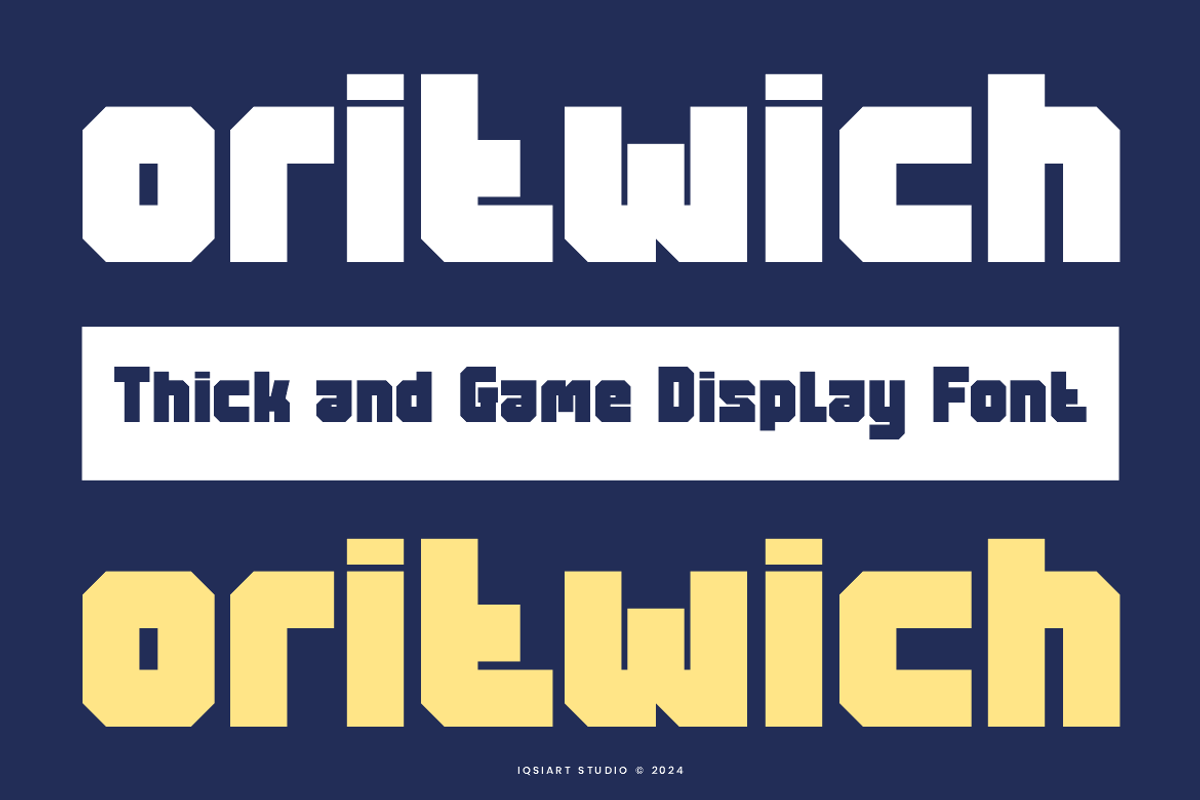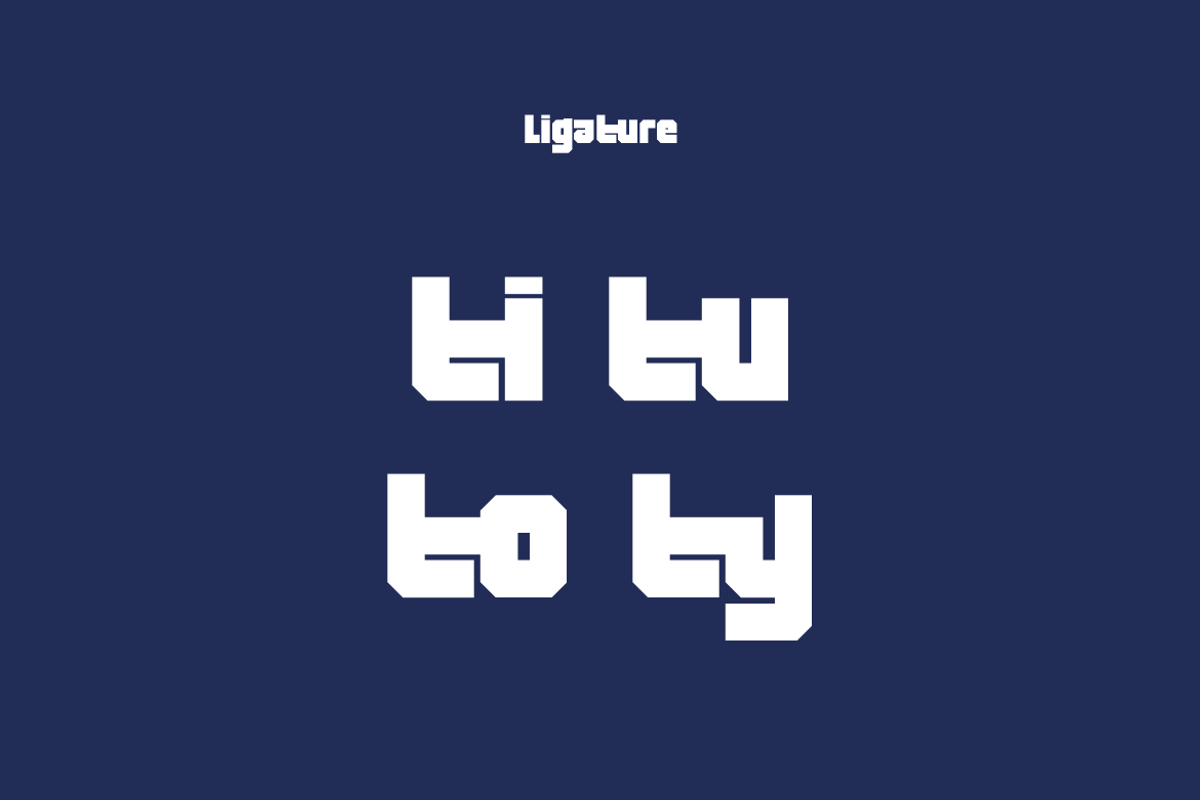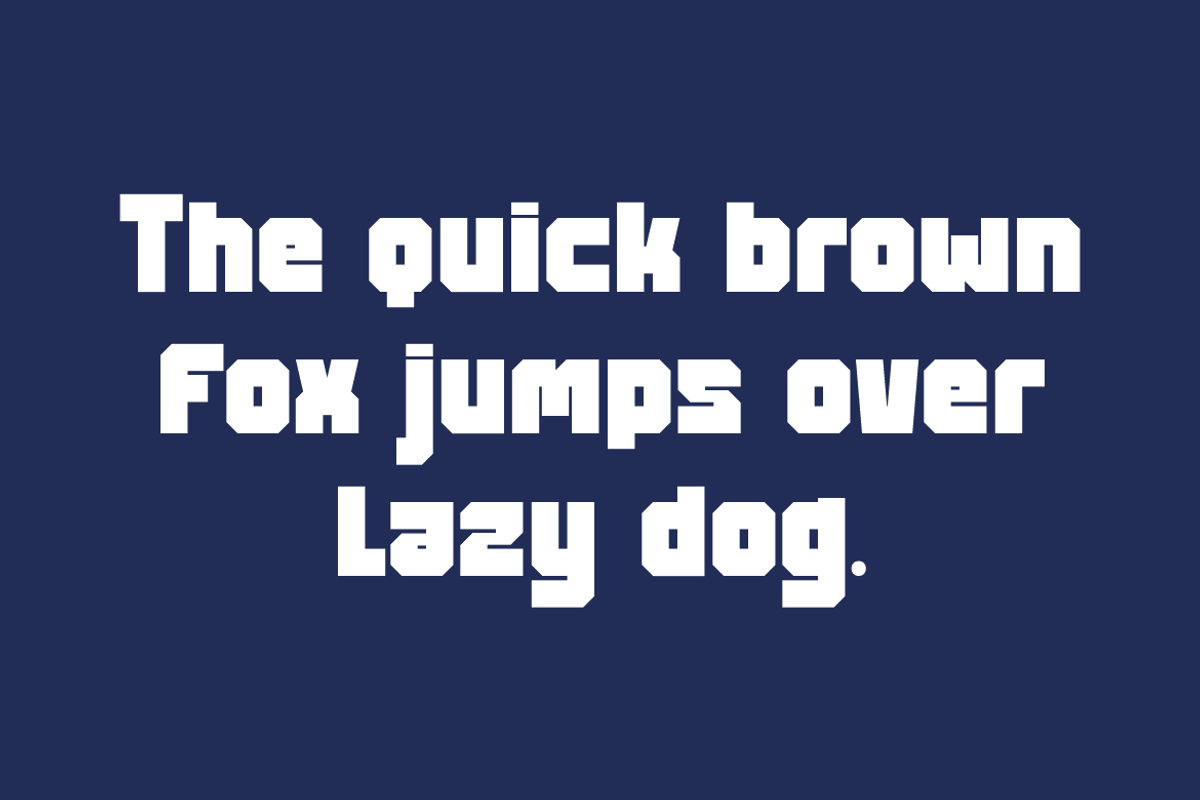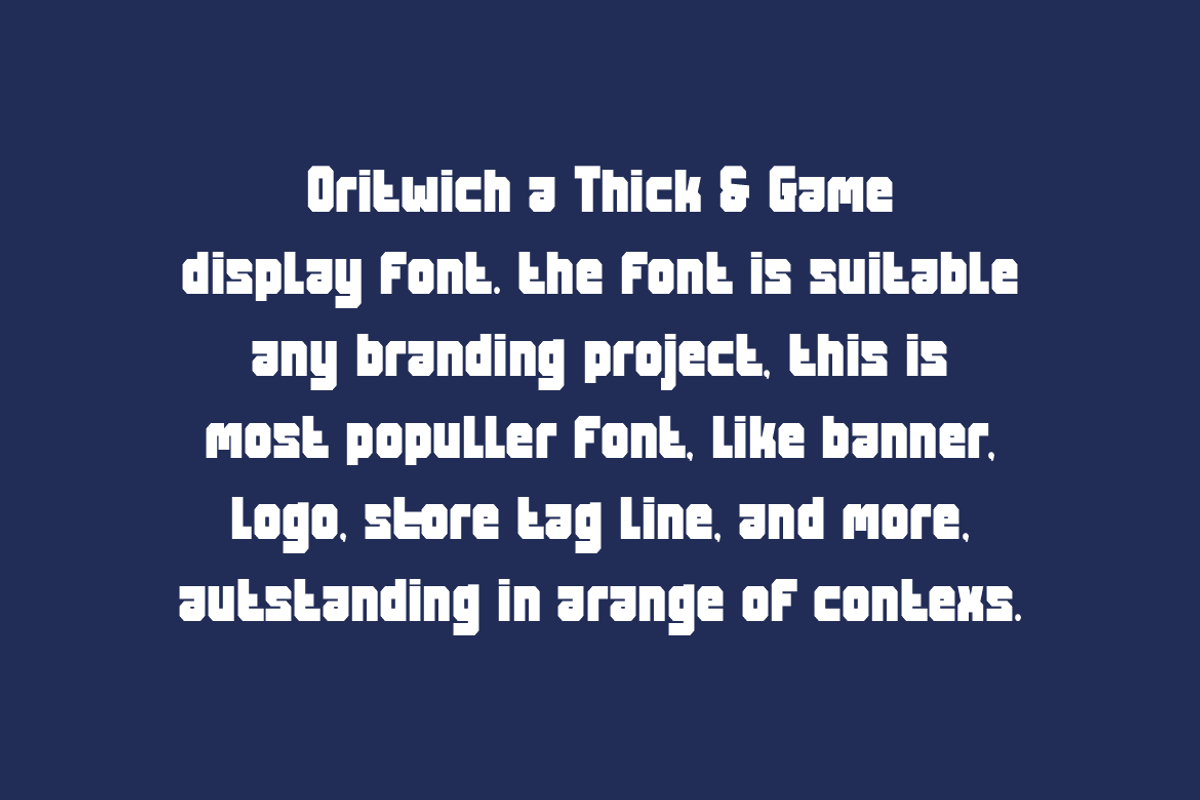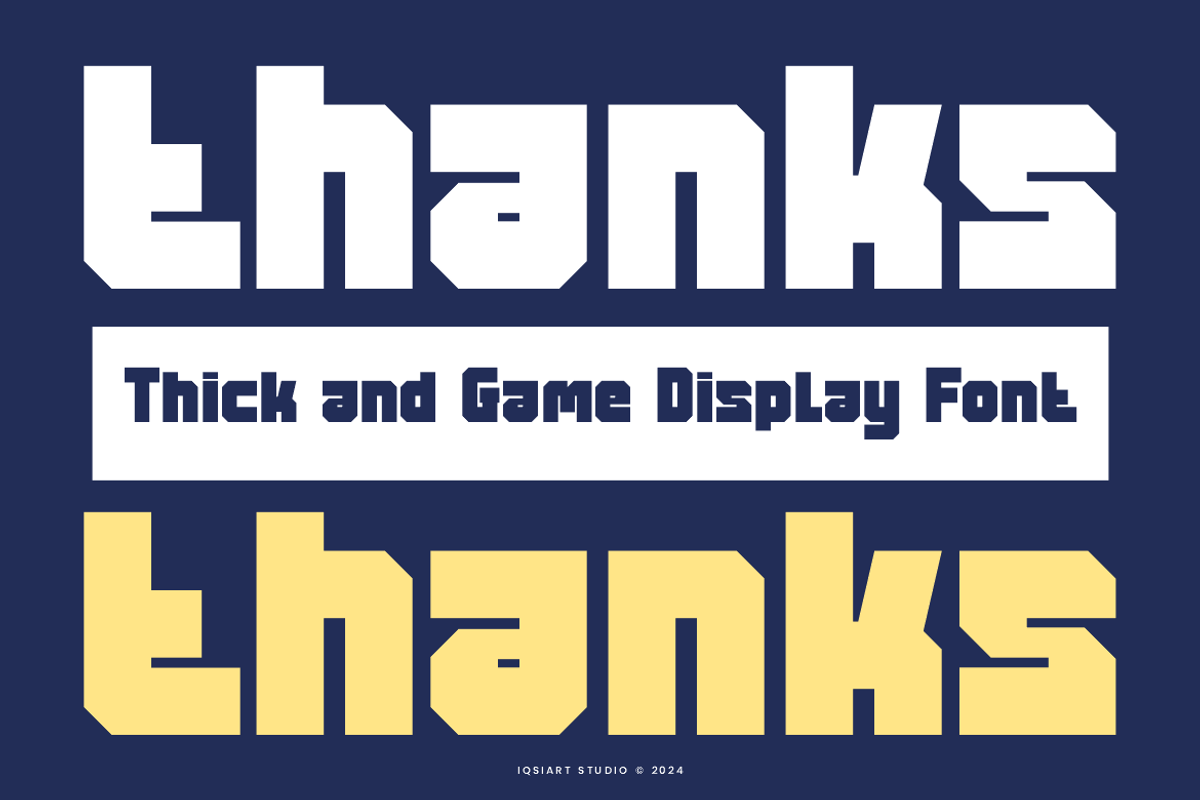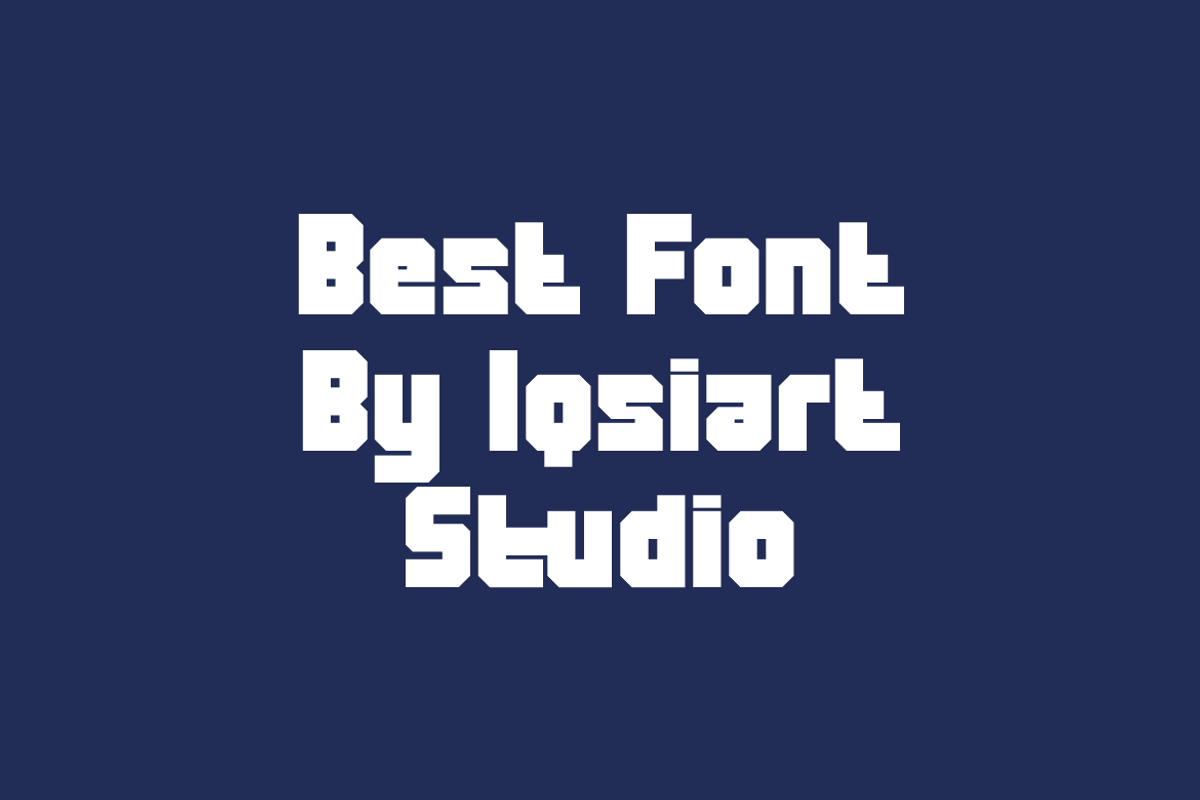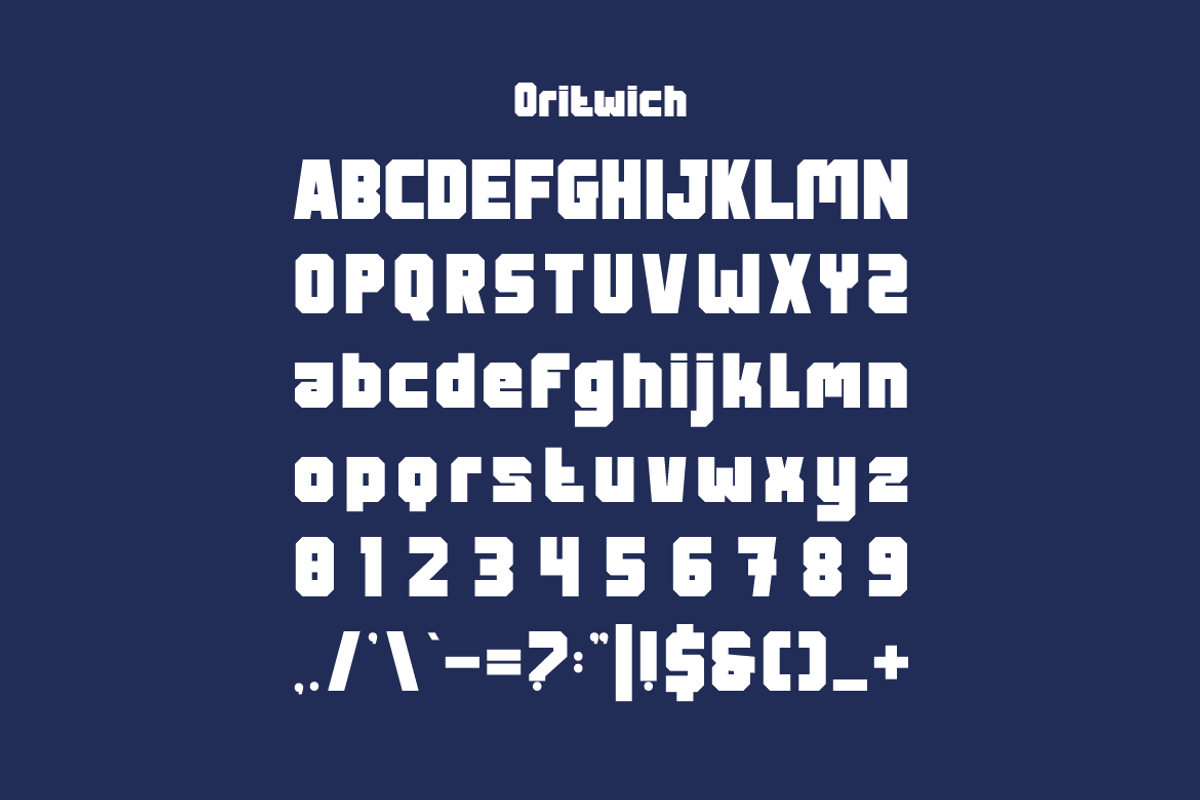
Oritwich - Thick & Game Font
Oritwich Font is a best and authentic display font. This font can be used for your various needs. We provide various themes and font styles. visit our profile to get a wide variety of themes and different font styles you need.